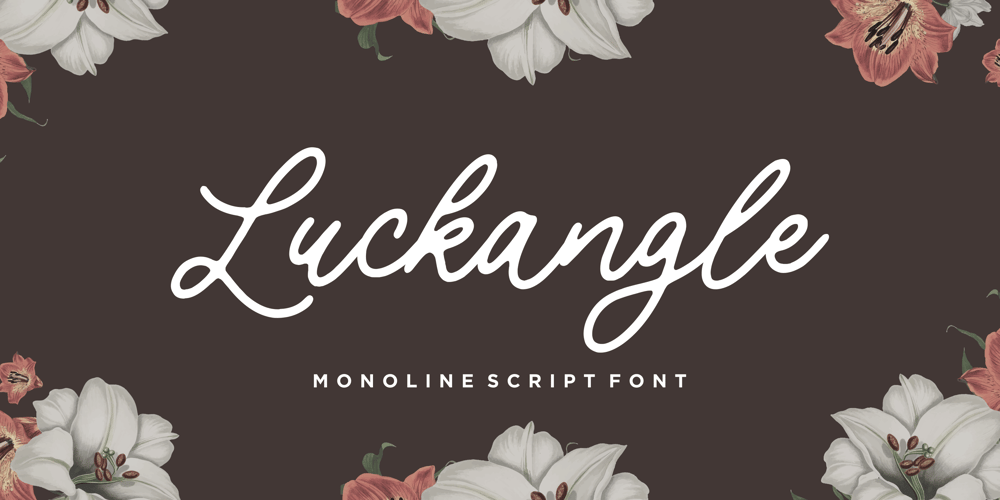
Luckangle
Luckangle font
Luckangle Font Family was designed by Restu Angga and published by Balpirick. Luckangle contains 1 styles and family package options. Luckangle is a Monoline Script Font.Luckangle is a lovely and delicate script font that exudes elegance and class. This font was particularly crafted for those who need a beautiful and refreshing look to their designs.Luckangle also multilingual support.Enjoy the font, feel free to comment or feedback, send me PM or email.Thank you!